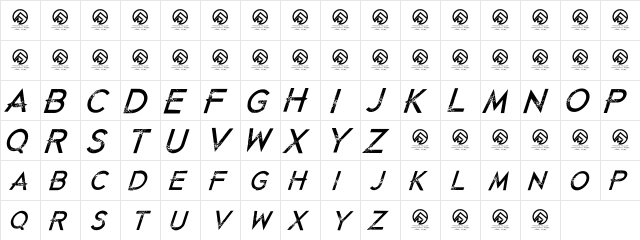
Just Die Already Italic
Design Context for Just Die Already Typeface
Just Die Already is a composed and adaptable typeface that performs quietly and consistently across a wide range of design contexts. The dynamic lean of this cut emphasises speed and emphasis in any layout.
Pro Tip: Try Just Die Already for annotation and caption copy alongside an upright companion — the contrast in angle creates a dynamic but ordered typographic system.